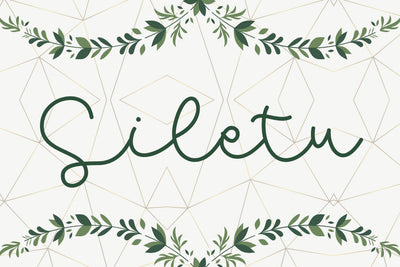
Siletu Font
Siletu is a whimsical, thin lettered script font with a relaxed theme, featuring a lovely style. No matter the topic, this font will be an incredible asset to your fonts’ library, as it has the potential to elevate any creation.